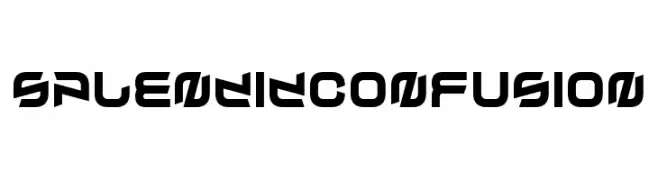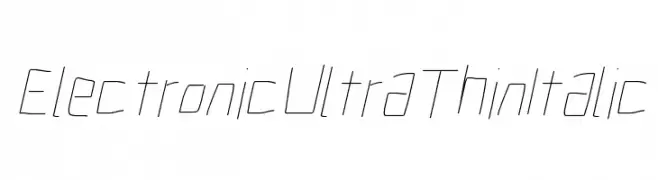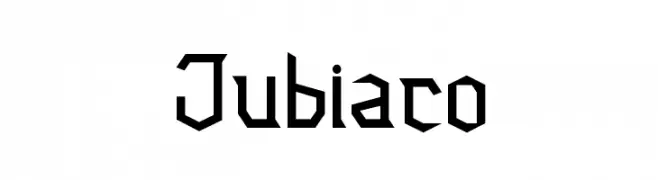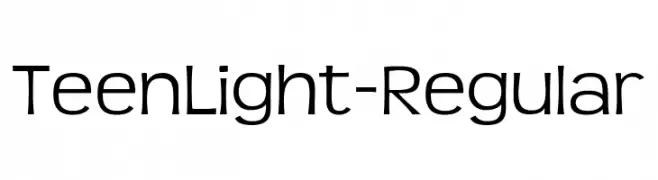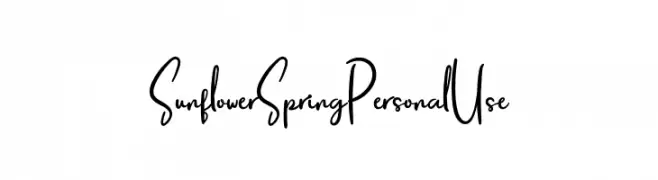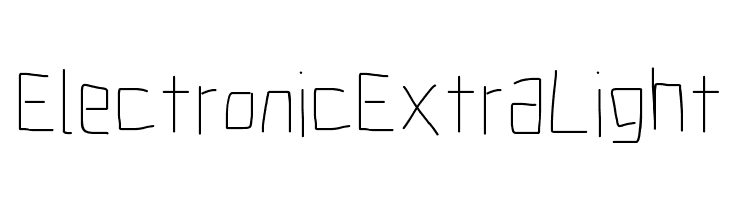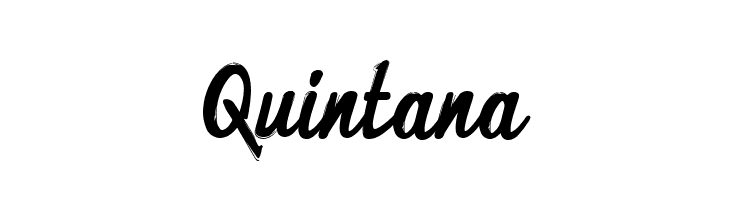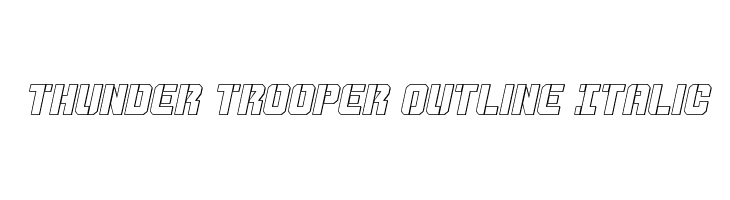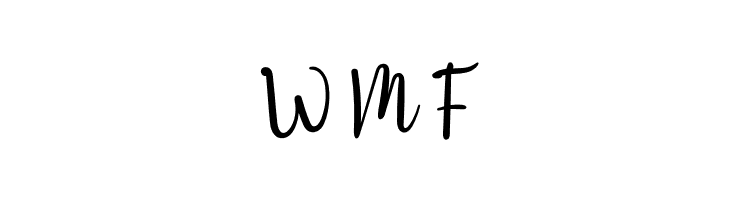
A decorative font with characters inside heart shapes with floral accents.
A bold, futuristic font with geometric shapes and dynamic angles.
A rugged, hand-drawn font with a distressed, historical appearance.
A modern, ultra-thin italic font with a futuristic, electronic style.
A bold, angular font with a modern, geometric design.
A modern, light sans-serif font with low contrast and slightly condensed spacing.
A bold, geometric font with a vintage, industrial style.
A playful, handwritten font with a whimsical and elegant style.
A modern, condensed, and thin font with a clean and minimalistic design.
A bold, distressed font with a rugged and edgy appearance.